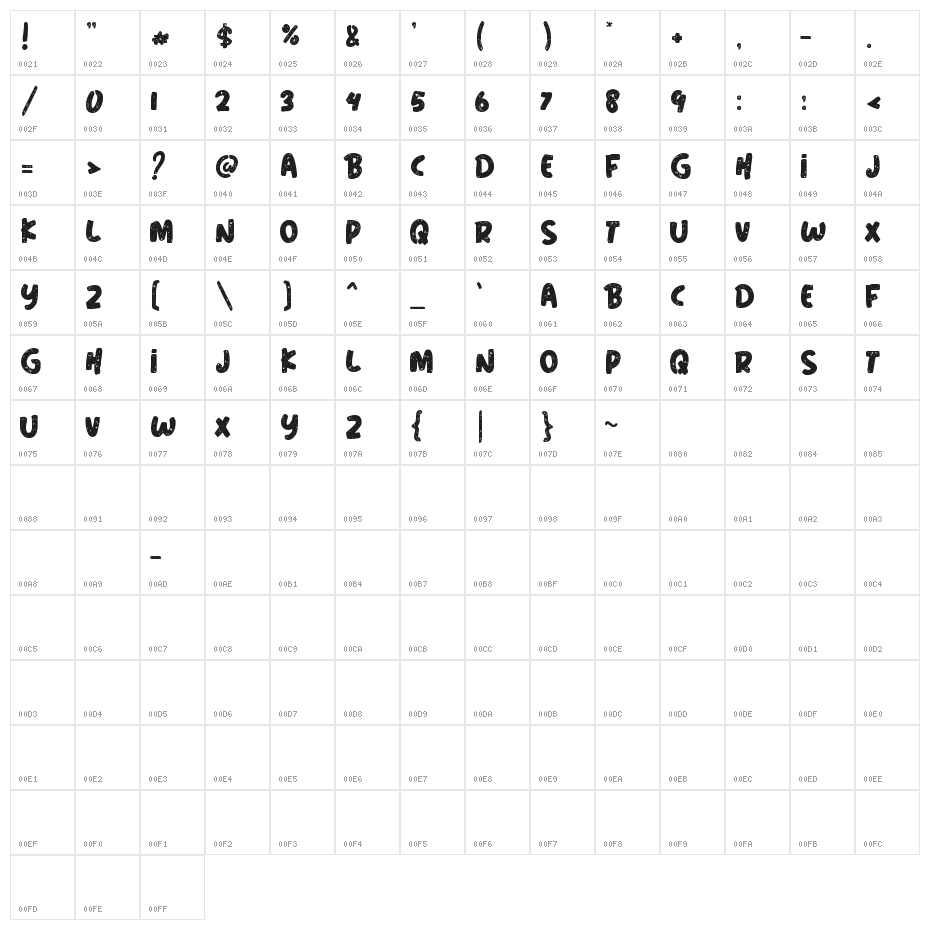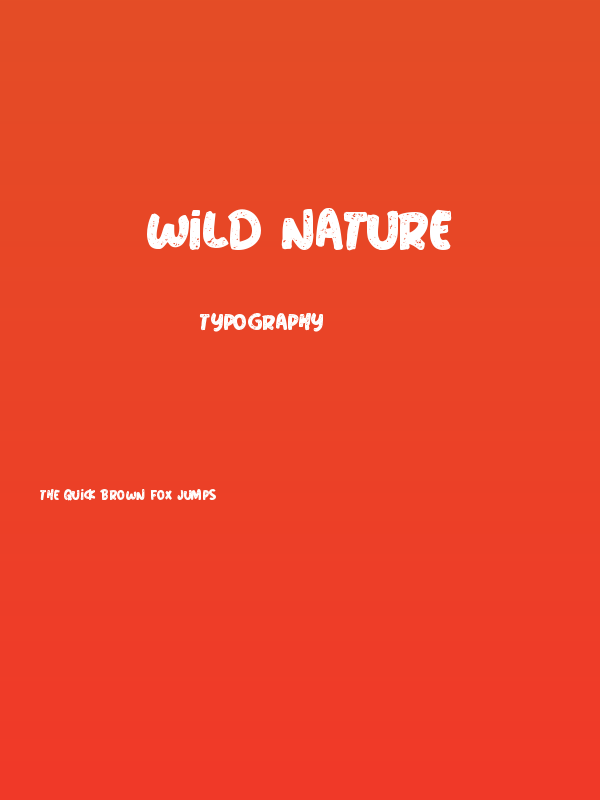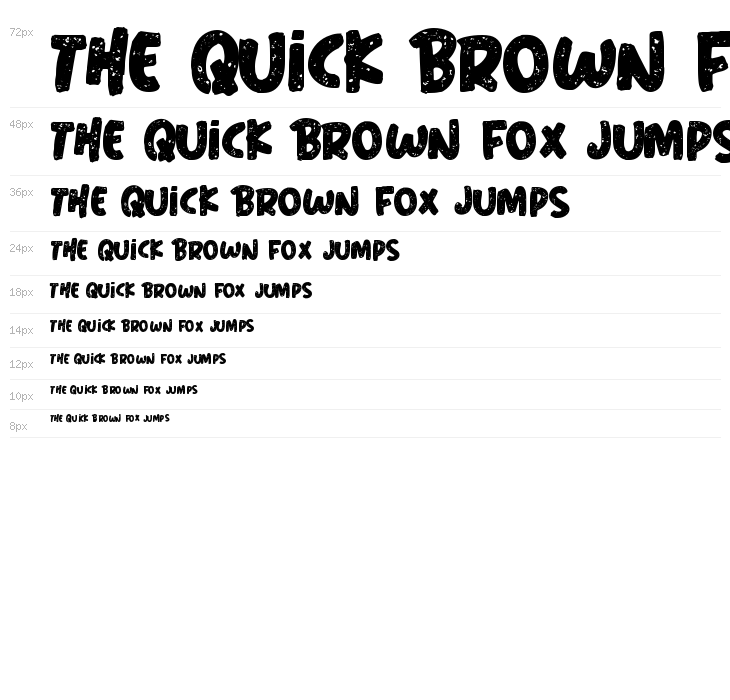
Wild Nature Font
Wild Nature Description
This font features a bold and playful style with a textured, distressed appearance that mimics a natural, hand-drawn look. The characters are rounded and slightly irregular, giving them a whimsical and organic feel. The texture within each letter adds a dynamic and tactile quality, making it stand out in creative projects. The font maintains a consistent weight throughout, ensuring readability while still offering a unique visual appeal. Its boldness and distinctive style make it suitable for eye-catching designs.
Overall StylePlayful, Organic, Textured
Proposed ProjectsIdeal for children's book covers, nature-themed posters, playful branding, and creative social media graphics.